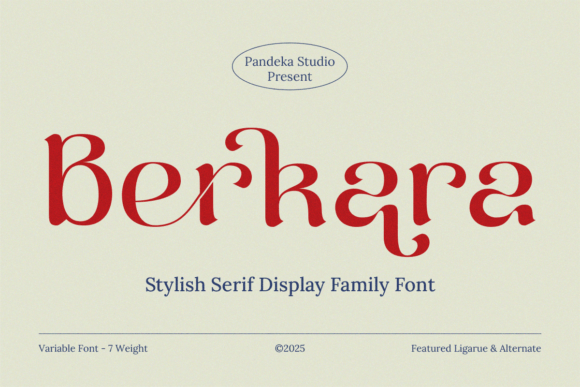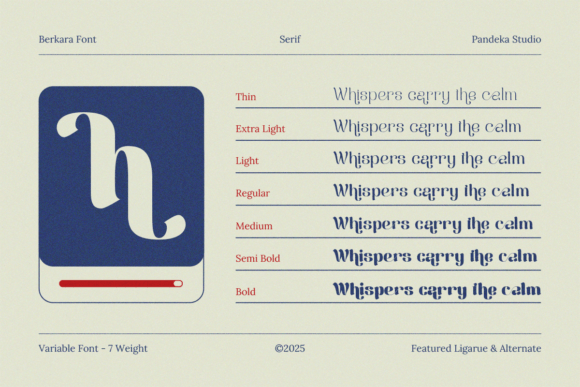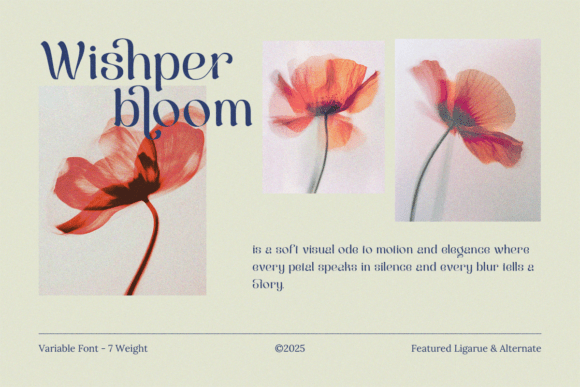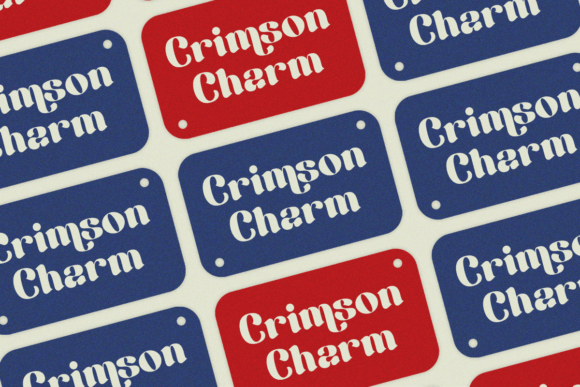
Berkara Font
About the Berkara Font
We are excited to introduce Berkara Font, a must-have typeface for any serious designer. Berkara – Stylish Serif Font Family
Berkara is a vintage-inspired serif font family with a modern and elegant twist. With 7 versatile styles —Thin, Extra Light, Light, Regular, Medium, Semi Bold, and Bold— Berkara offers flexibility for a wide range of creative applications. Its refined ligatures and graceful curves make it perfect for stylish typography in luxury branding, fashion logos, editorial layouts, premium packaging, and sophisticated display design.
Berkara Font Example